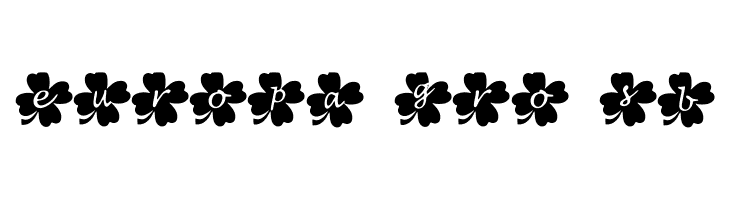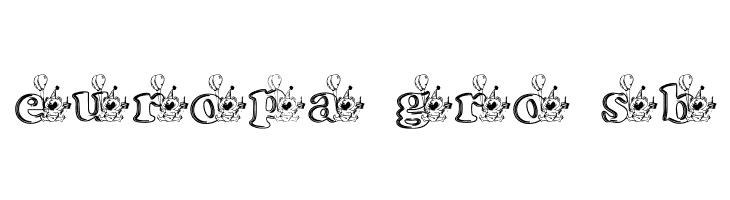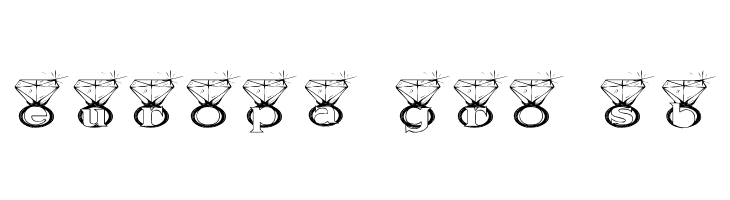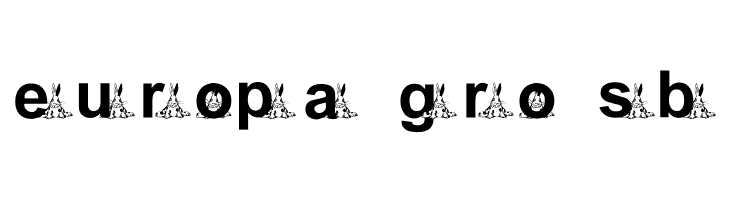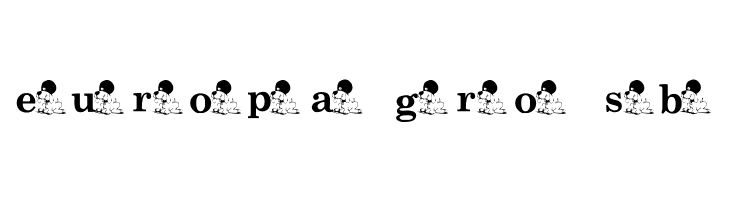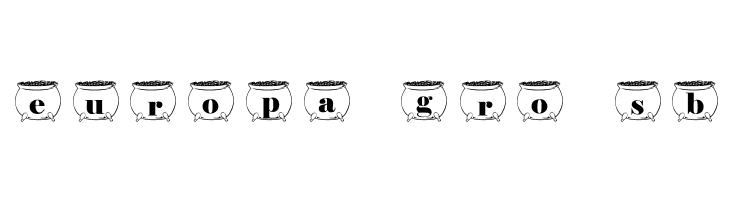
( Funqi )
A whimsical font with script letters inside four-leaf clover silhouettes.
( KELGE Fonts - www.behance.net/contactkel17e1 )
A sharp, elongated font with a mysterious and eerie style.
( Kat's Fun Fonts - www.katsfunfonts.com/ )
A playful decorative font with characters inside pots of gold.
( Katz Fontz - katzfonts.50megs.com/kg.html )
A festive, decorative font with birthday-themed elements.
( Katz Fontz - katzfonts.50megs.com/kg.html )
A decorative font with diamond motifs, offering a luxurious and elegant style.
( Katz Fontz - katzfonts.50megs.com/kg.html )
A playful, Easter-themed decorative font with intricate details.
( Katz Fontz - katzfonts.50megs.com/kg.html )
A whimsical font with fairy characters adorning each letter, combining outlined uppercase with bold lowercase styles.
( Katz Fontz - katzfonts.50megs.com/kg.html )
A whimsical font with festive characters integrated into each letter.
( Katz Fontz - katzfonts.50megs.com/kg.html )
A playful, decorative font with characters inside pots of gold, featuring leprechauns.
( Katz Fontz - katzfonts.50megs.com/kg.html )
A decorative font with letters inside shamrock shapes, perfect for festive themes.